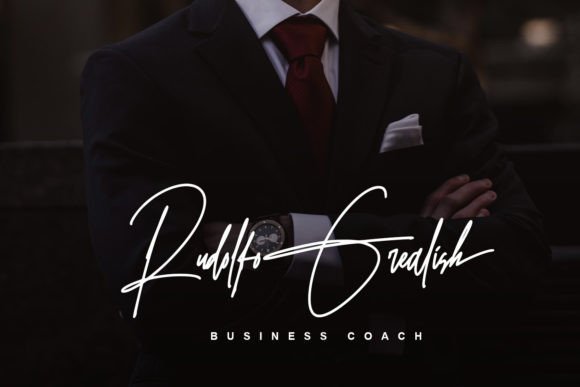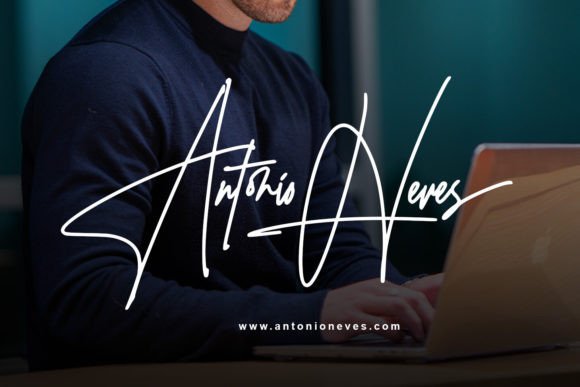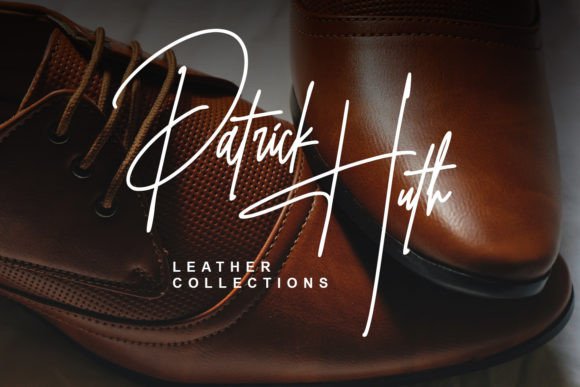
Introduction to Australiana Font
Australiana is an exquisite handwritten font, masterfully designed to become a true favorite.
👤 Author Abodaniel
Why Choose Australiana Font?
Australiana Font offers exceptional quality and versatility, making it a valuable addition to your design toolkit. Whether you’re creating for personal projects or commercial use, Australiana Font delivers professional results.